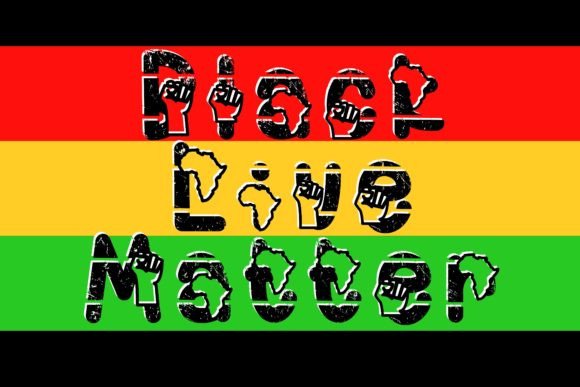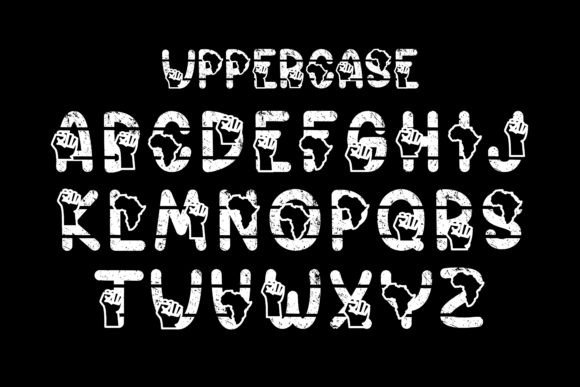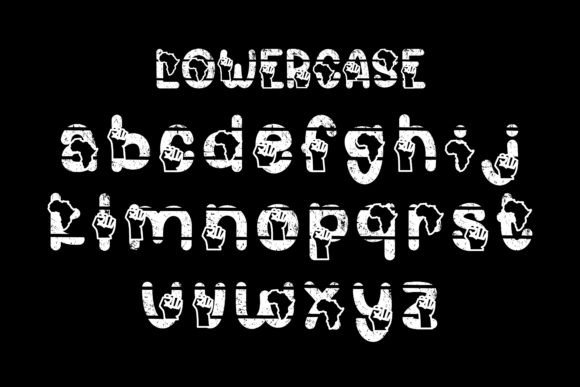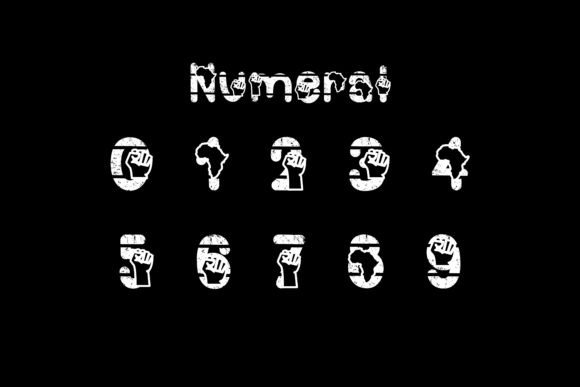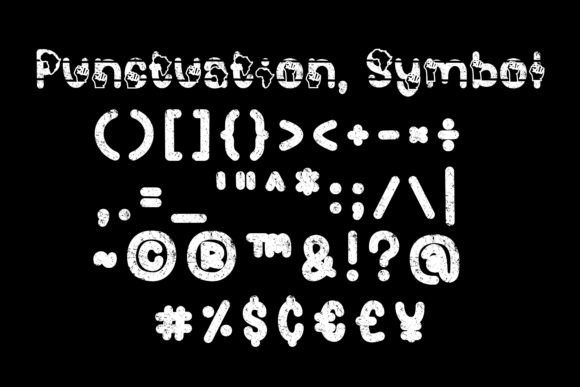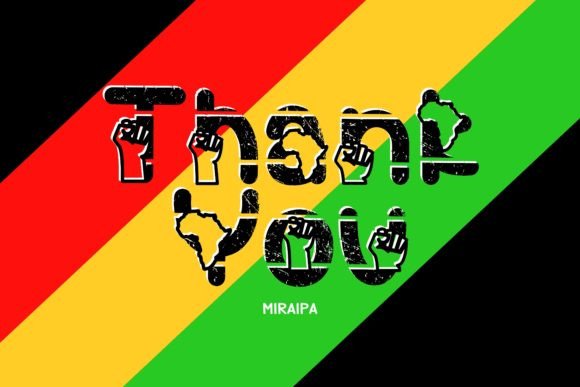
Bring Your DIY Projects to Life with the Black History Month Font
As you sit down at your desk, surrounded by scraps of paper, glue sticks, and a dash of creativity, you feel that spark of inspiration ignite within you. It’s moments like these that remind us why we love DIY projects – the freedom to express ourselves, the joy of bringing ideas to life, and the satisfaction of seeing our creations take shape.
Now, imagine having the perfect font to complement your artistic vision. Enter the Black History Month Font, a friendly and cool decorative font dedicated to celebrating this special month. This font is not just a novelty, but a valuable addition to any designer’s library, adding a touch of personality to any project.
Key Features of “Black History Month Font”
- Font Family: A custom-designed font family, inspired by African American heritage and culture.
- Unique Characteristics: Features distinctive letterforms and symbols that pay homage to African American history and culture, including a custom-designed ampersand (&) and dollar sign ($).
Black History Month Font Review
As a designer, I was excited to dive into the “Black History Month Font” and see how it stacks up. Overall, I think it’s a great initiative to create a font that celebrates Black culture and history.
- The font is bold and eye-catching, perfect for making a statement.
- The design incorporates traditional African patterns and motifs, which adds a unique touch.
- The font is highly customizable, allowing users to adjust the size, color, and style to fit their needs.
- The font may be too bold for certain applications, such as body text or small headers.
- The design can be overwhelming if not used thoughtfully, so it’s essential to balance it with other design elements.
- The font may not be suitable for all audiences, particularly those who may find the bold design or traditional African motifs to be culturally insensitive.
Overall, I think the “Black History Month Font” is a great addition to any designer’s toolkit. While it may have some limitations, it’s a powerful tool for making a statement and celebrating Black culture. With thoughtful use, this font can be a valuable asset in any design project.
Use the Black History Month Font to add a touch of elegance and sophistication to your designs. Experiment with different font sizes, colors, and styles to create a unique look. Consider using the font in combination with other design elements to create a cohesive and visually appealing design.
The Black History Month Font is ideal for designs related to African American culture, history, and heritage. Use it to create posters, flyers, and other promotional materials for events, exhibitions, and campaigns. You can also use the font in educational